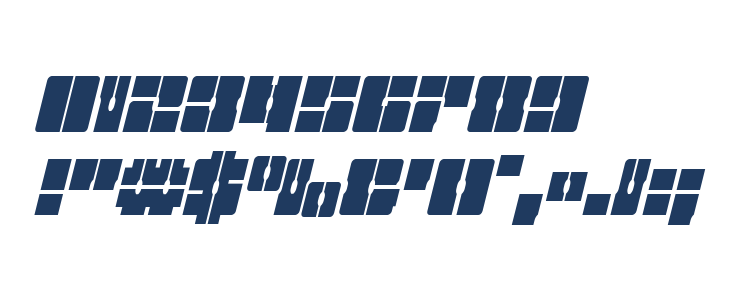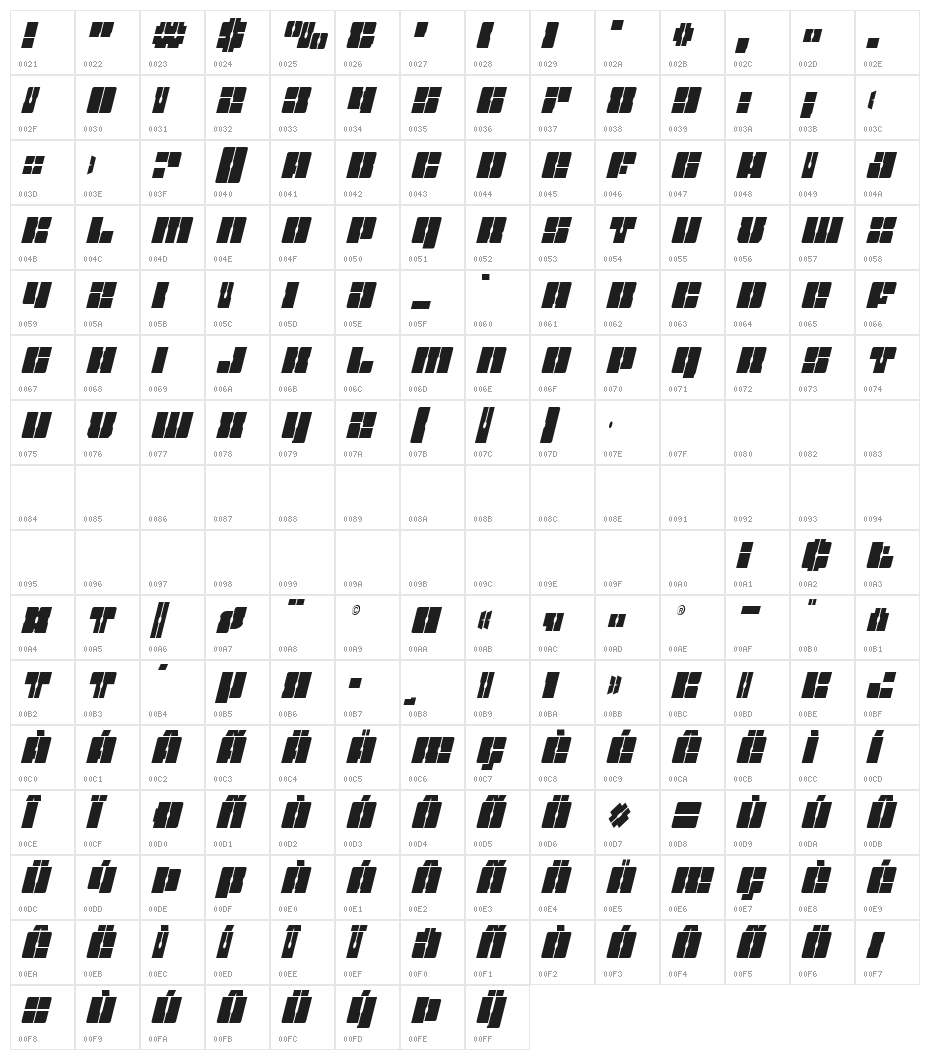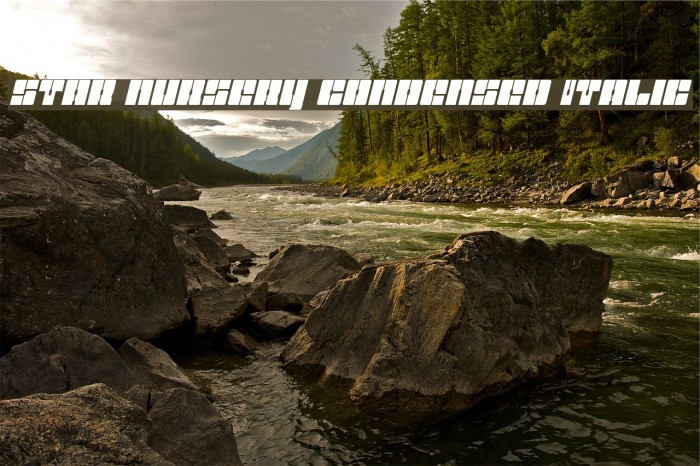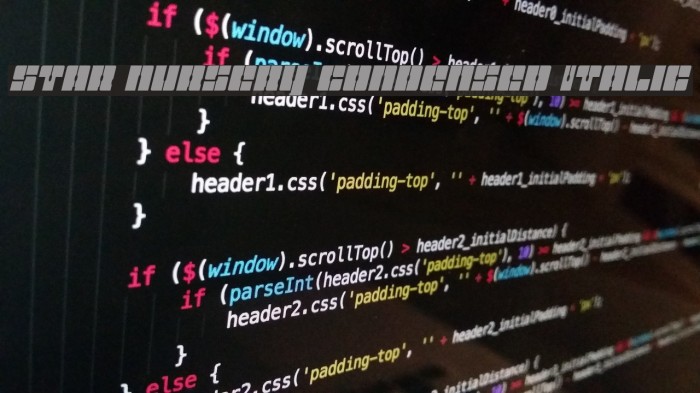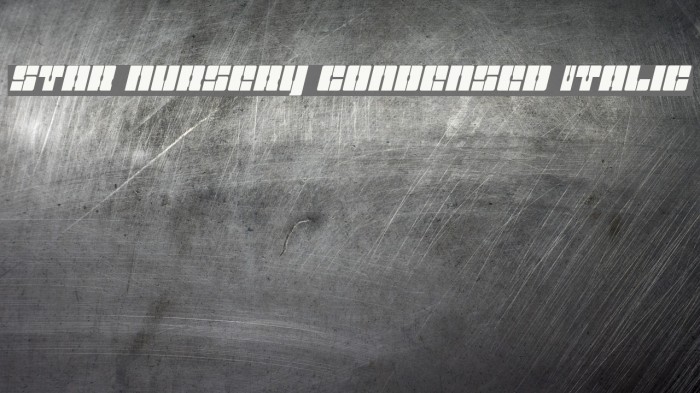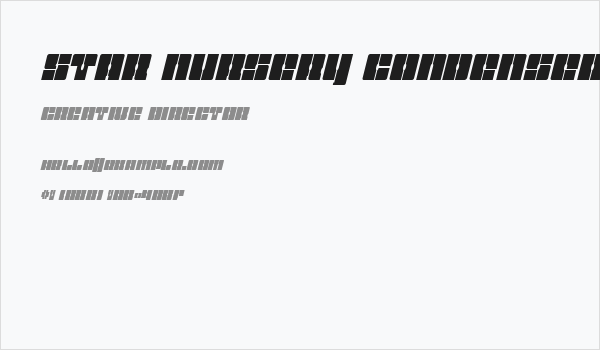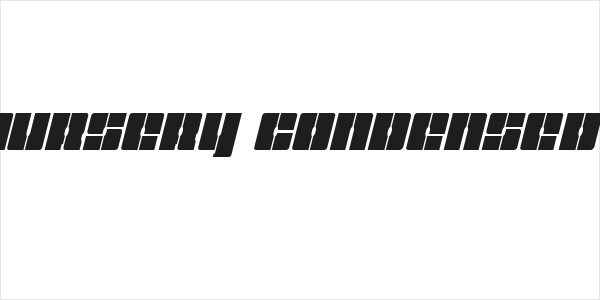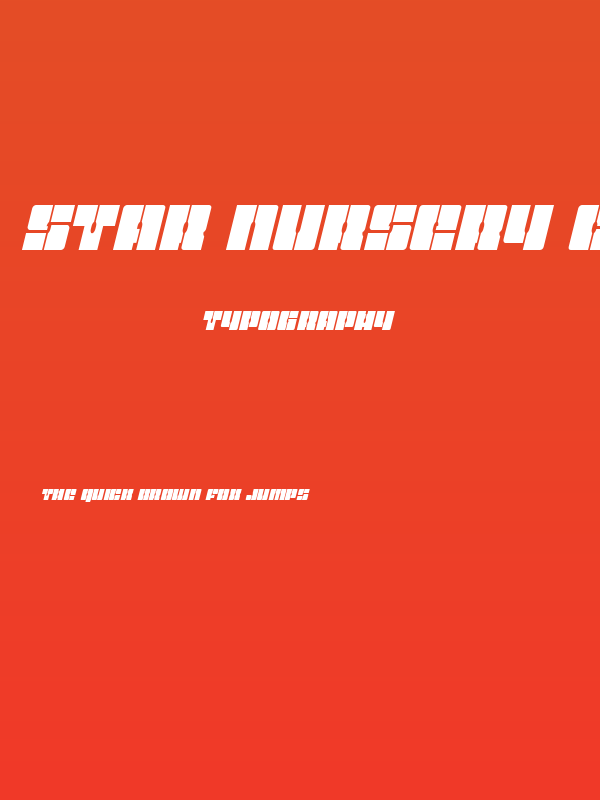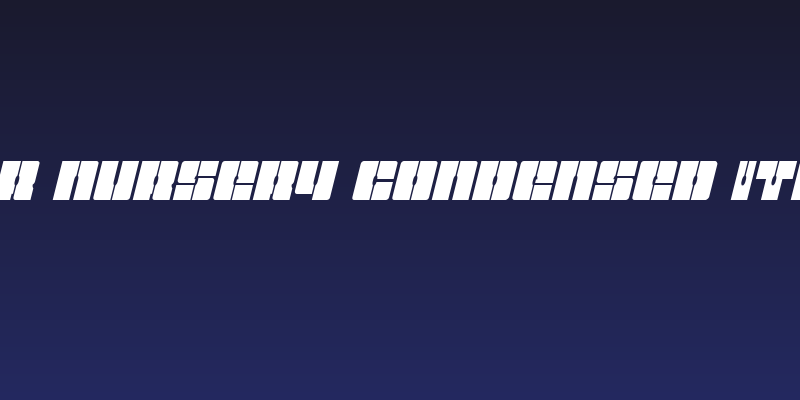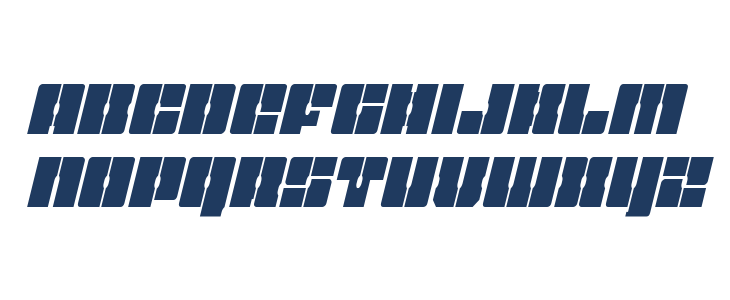
Star Nursery Condensed Italic Font
Star Nursery Condensed Italic Description
This font features a bold, geometric design with a condensed and italicized style. The characters are constructed with sharp angles and a blocky appearance, giving it a futuristic and dynamic look. The uppercase and lowercase letters maintain a consistent height, enhancing the uniformity of the typeface. The numbers and special characters follow the same bold and angular design, ensuring a cohesive appearance across all elements. The overall aesthetic is striking and modern, making it suitable for attention-grabbing designs.
| Proposed Projects | Ideal for sci-fi themed posters, video game graphics, futuristic branding, and dynamic logo designs. |